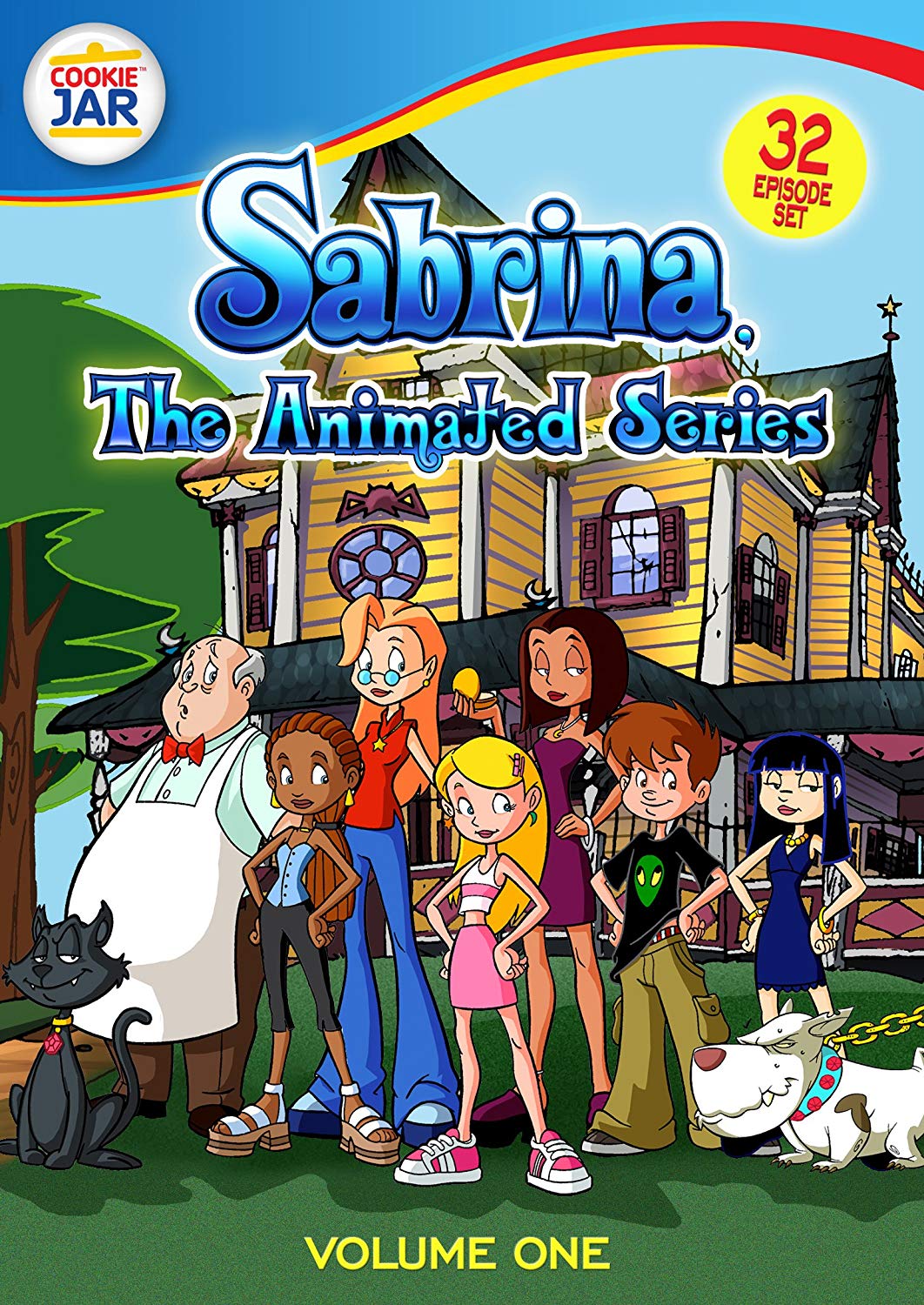
Sabrina The Animated Series Font
AnimationSabrina: The Animated Series is a television show that follows the adventures of a young witch named Sabrina as she navigates the magical world and her ordinary teenage life. The show aired from 1999-2000 and was based on the popular Archie Comics character of the same name.
The main title of Sabrina: The Animated Series is written in a font very similar Periwinkle by Jason Anthony Walcott. Periwinkle is a fun and happy digital revival of the vintage phototype typeface inspired by the 1960s and 1970s.